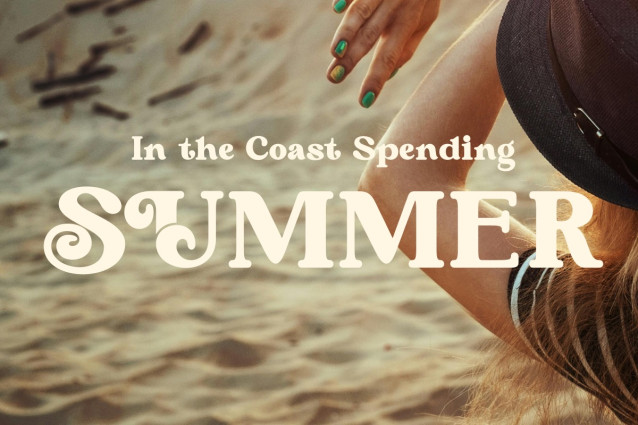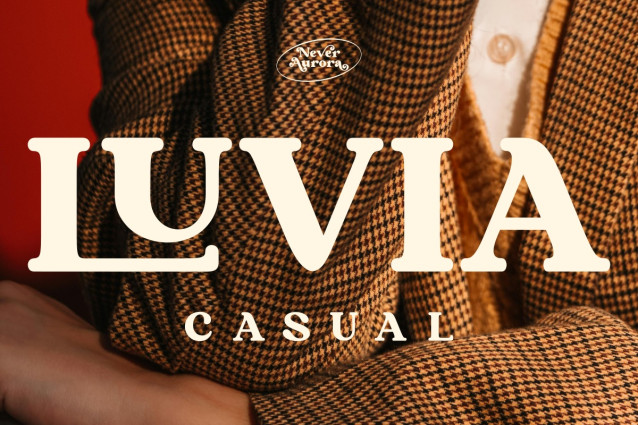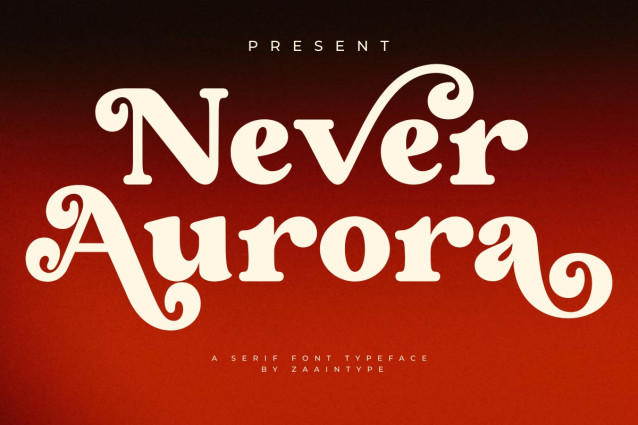
Never Aurora Font is a bold serif font that radiates both strength and elegance. With its strong contrast, sharp details, and balanced proportions, it is designed to deliver a dramatic and distinctive presence. Perfect for headlines, branding, editorials, or any design that seeks to convey a bold yet refined character. Never Aurora blends classic aesthetics with a modern touch, making it an ideal choice for creative projects that demand powerful and elegant typography